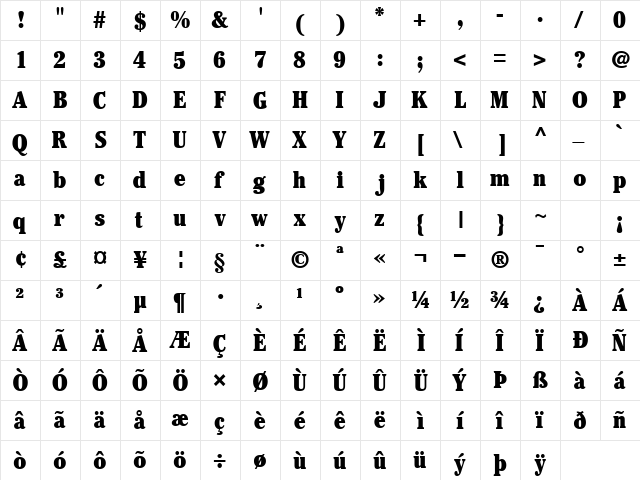
CheltenhamBlackCondSSK Regular
Design Context for CheltenhamBlackCondSSK Typeface
CheltenhamBlackCondSSK offers clean, dependable letterforms without strong stylistic allegiance, making it a practical choice for designers who need flexibility. Its narrow stance lets it pack a punch even in space-constrained designs.